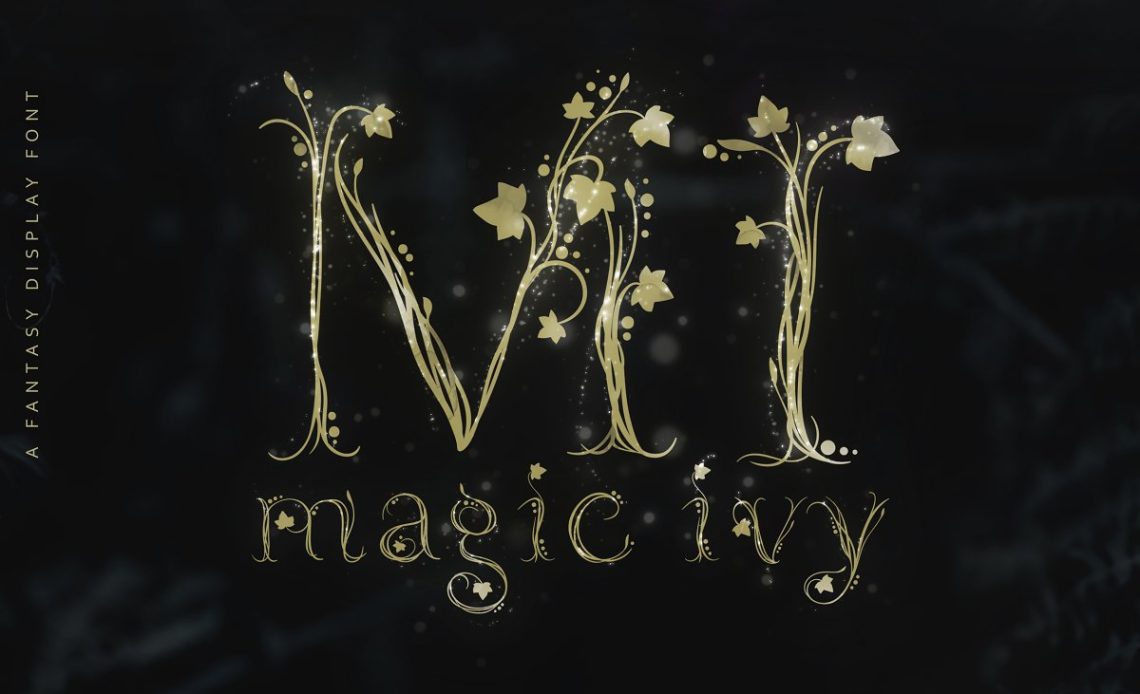
Introducing the Handwritten Font BUNDLE, a captivating collection of 16 typefaces in 31 unique font styles created by the talented Anna Markovets. This bundle is a must-have for anyone looking to elevate their design projects and make a lasting impression.
Whether you're working on wedding designs, invitations, logos, or social media posts, the Handwritten Font BUNDLE has got you covered. These modern calligraphy uppercase letters are perfect for creating stunning wedding monograms and logos that will leave a lasting impression.
With this bundle, you'll have access to a wide range of fonts that can be used for various purposes. From branding and packaging to magazines and restaurant menus, the possibilities are endless. Let your creativity flow and explore the endless opportunities that these fonts offer.
The Handwritten Font BUNDLE includes popular fonts like Magic Ivy, Forgotten Melody, Odour, Le Jardin, Quaint Garden, Limerence, Jubilation, Seascape, Millennials, and Herbarium. But that's not all! In the latest update, six new font families have been added, including Gentle Whisper, Glitter, Allure and Grace, Queenly, Autumn Embrace, and Spring Vibes.
In addition to the fonts, you'll also receive over 60 graphic bonuses to enhance your designs even further. This is the ultimate package for anyone looking to create eye-catching and impressive visuals.